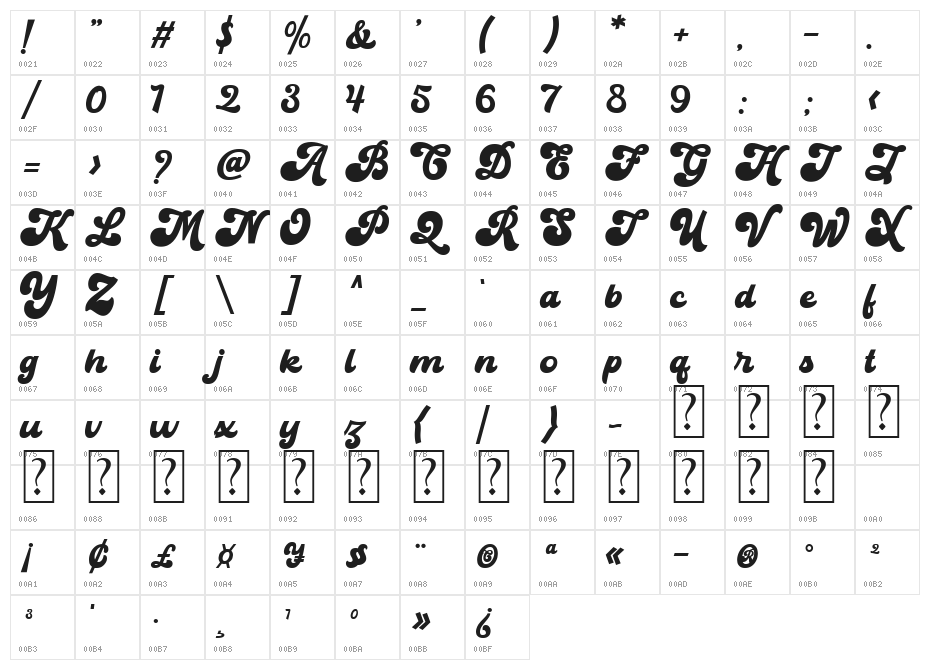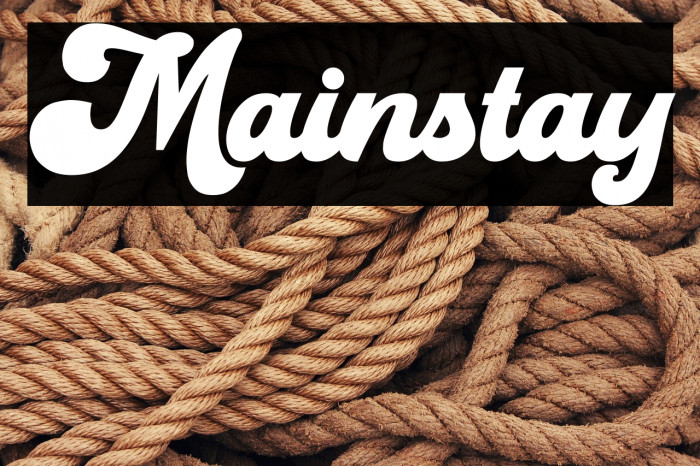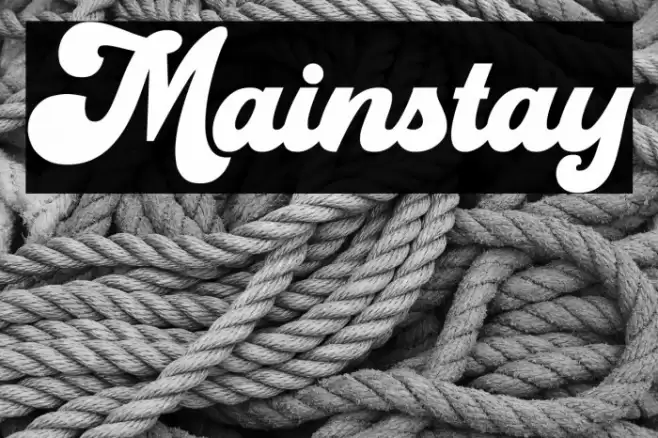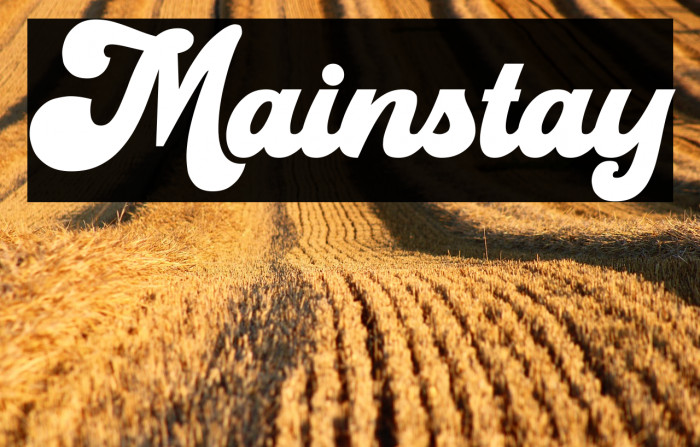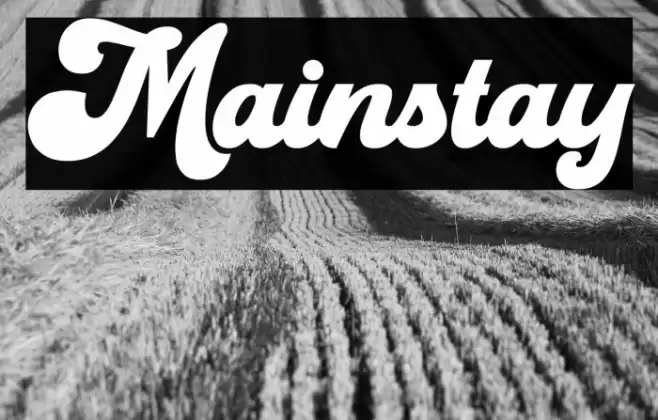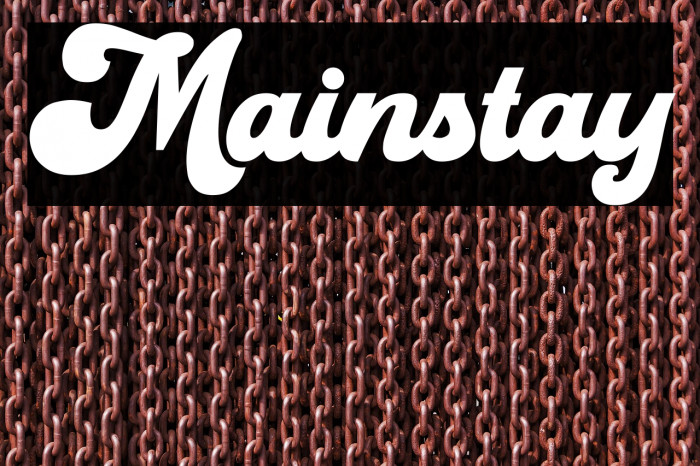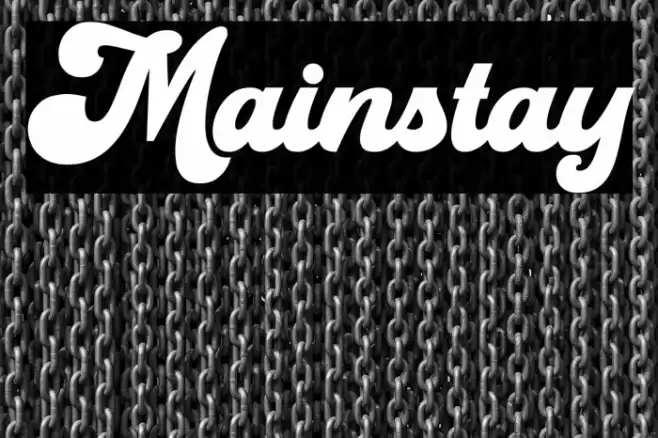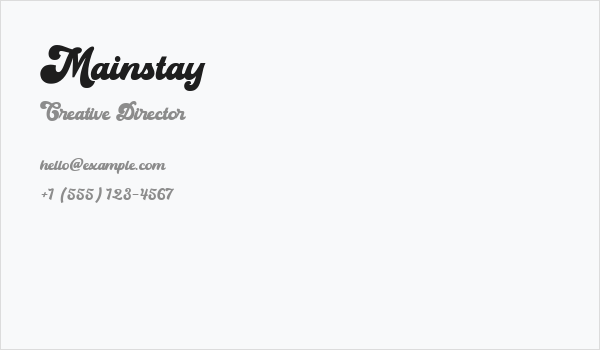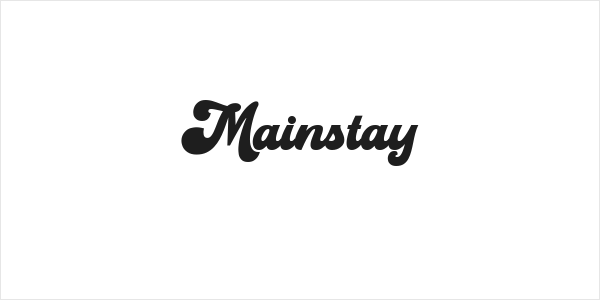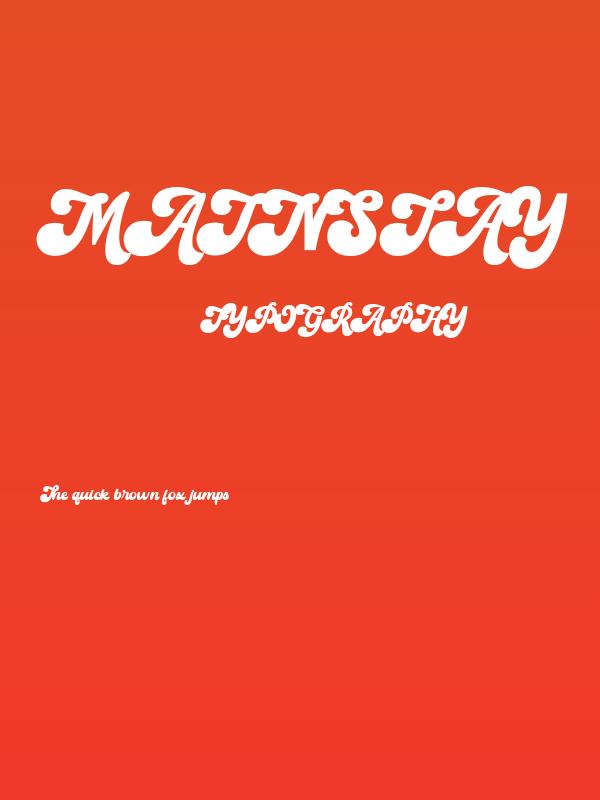
Mainstay Font
Mainstay Description
This font features a bold, flowing script style that exudes a sense of elegance and playfulness. The characters are interconnected, creating a seamless and fluid appearance. The uppercase letters are ornate and slightly larger, while the lowercase letters maintain a consistent flow. The numbers and special characters are designed to match the overall style, ensuring a cohesive look. The font's thick strokes and rounded edges contribute to its bold presence, making it ideal for attention-grabbing designs. Its decorative nature is perfect for projects that require a touch of sophistication and flair.
| Use Case | Logos, Headlines |
| Proposed Projects | Ideal for wedding invitations, branding, logos, and decorative headlines. |